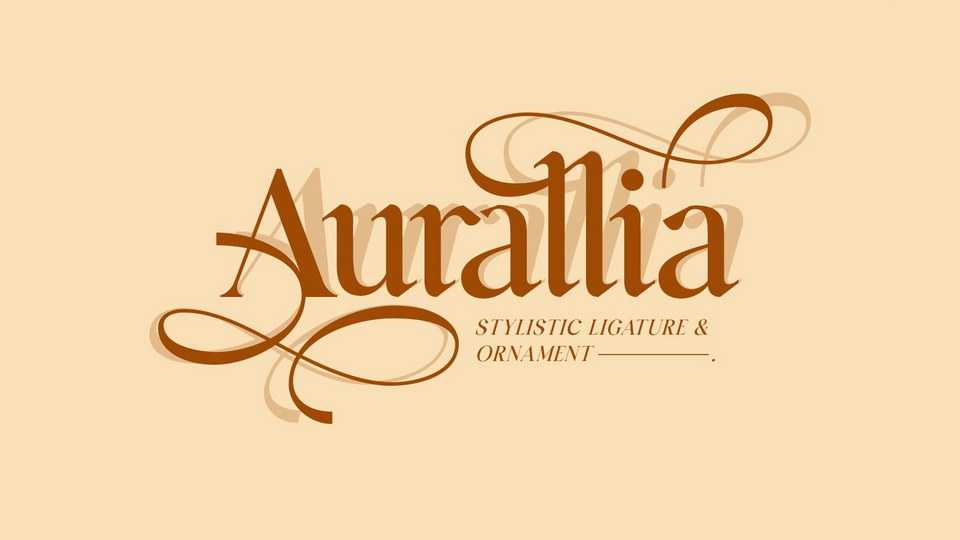
Download Aurallia font, an attractive typeface that gives a simple and stylish impression. Here we will see a feminine feel but Aurallia will also look good when you use it in a design that has a luxury style.